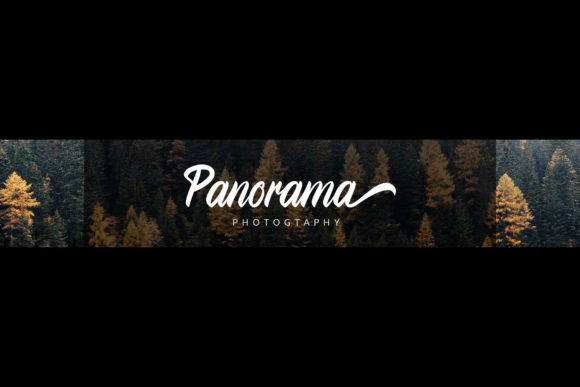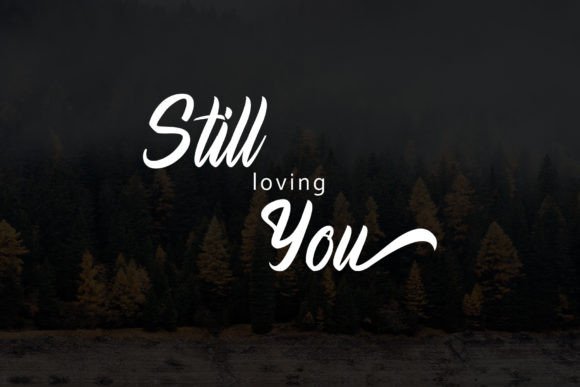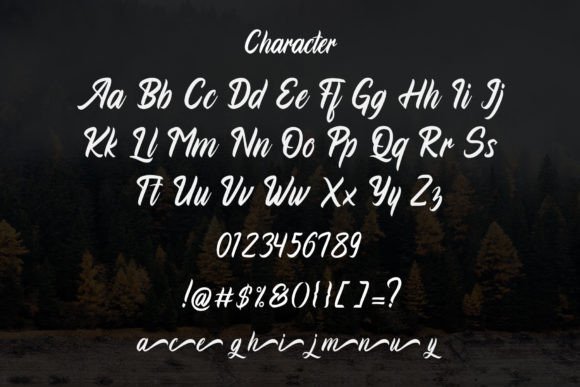
The Agustiyan Font: A Charming and Elegant Addition to Your Design Arsenal
I’ll never forget the time I was working on a wedding invitation project for a dear friend. The design needed a touch of elegance and whimsy, but I was struggling to find the perfect font. That’s when I stumbled upon Agustiyan, a beautiful handwritten font that instantly captured the essence of the occasion. In this article, I’ll share my experience with Agustiyan, its features, and how to make the most of it in your designs.
An Honest Review of Agustiyan
- ✨ Elegant and charming handwritten feel
- ✅ Highly versatile for various design projects
- 💕 Beautifully crafted to add a personal touch
- 🎨 Supports OpenType features for advanced typography
While Agustiyan is an excellent font, there are a few things to keep in mind:
- ⚠️ May not be suitable for very large or very small font sizes
- 🤔 Limited availability of certain special characters
The Story Behind Agustiyan
Agustiyan was designed with the intention of creating a font that feels both charming and elegant. The designer aimed to craft a font that would add a personal touch to any design project, from wedding invitations to business cards. With its beautiful handwritten feel and support for OpenType features, Agustiyan has become a popular choice among designers.
Q: What type of projects is Agustiyan best suited for?
A: Agustiyan is versatile and can be used for wedding invitations, thank you cards, quotes, greeting cards, logos, business cards, and more.
Q: Does Agustiyan support OpenType features?
A: Yes, Agustiyan supports OpenType features, including ligatures and stylistic alternates.
Q: Is Agustiyan easy to read?
A: Yes, Agustiyan is designed to be elegant and easy to read, making it perfect for body text and headlines.